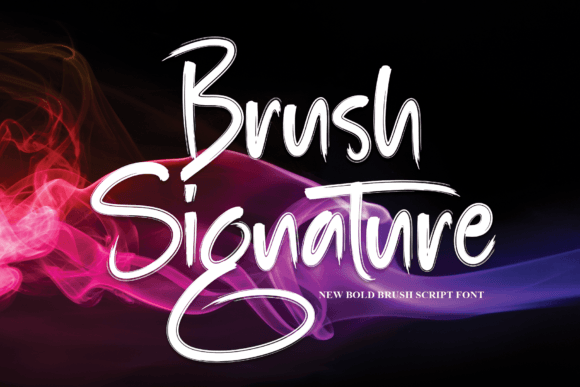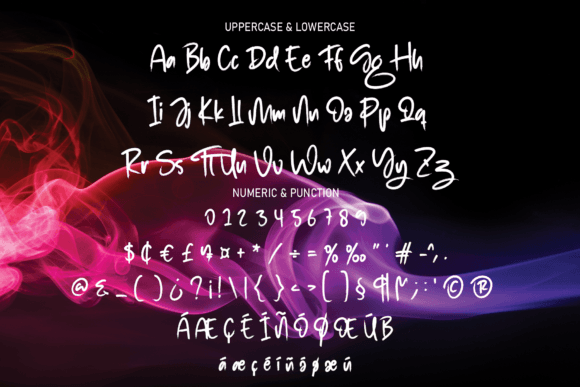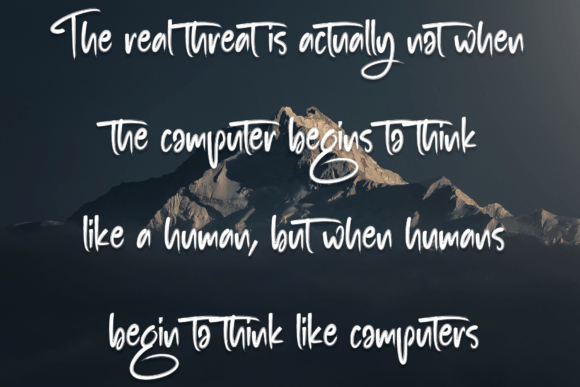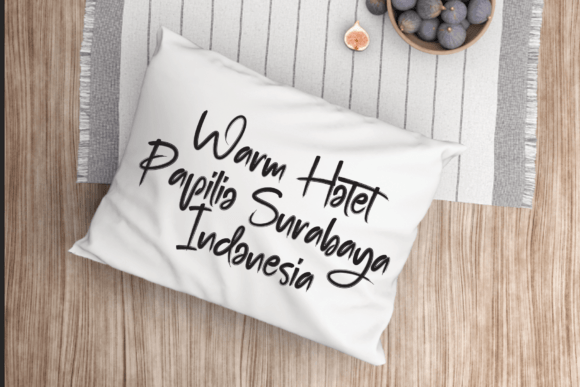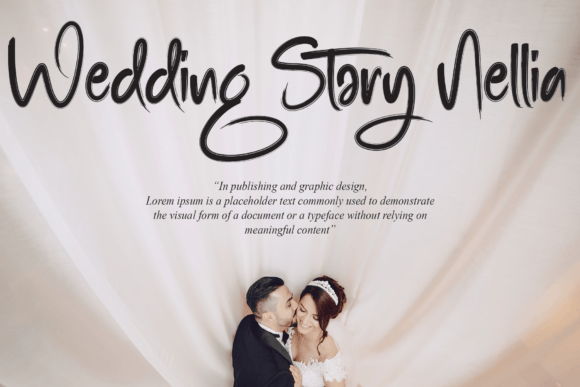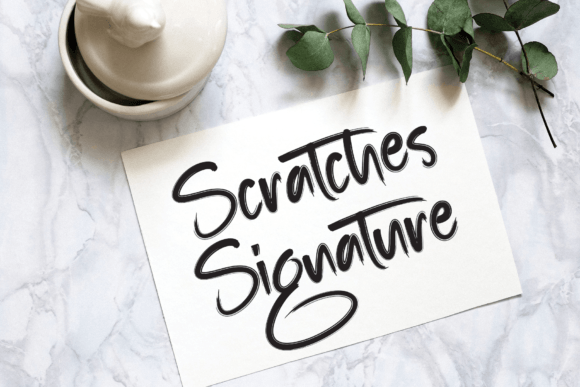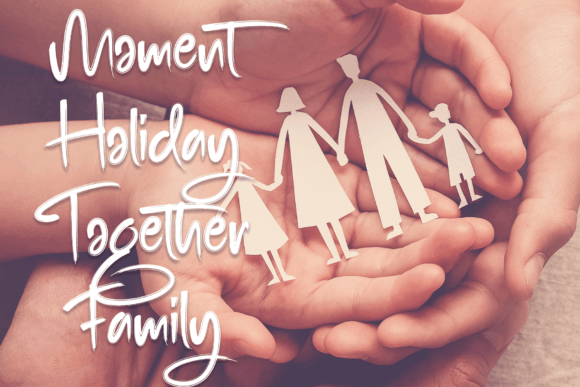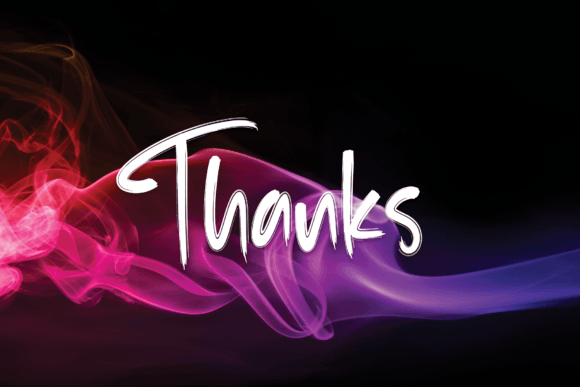
Brush Signature Font
About Brush Signature Font
Introducing Brush Signature, a font that showcases the latest style of letters, perfect for a wide range of creative projects. With its contemporary and stylish design, Brush Signature is ideal for wall displays, wedding invitations, social media post logos, advertisements, product packaging, product designs, labels, photography, watermarks, invitations, stationery, and any project that demands a handwritten taste.
The latest style of letters in Brush Signature adds a modern and trendy touch to your designs. Its brushstroke-inspired characters bring a dynamic and stylish flair, making it suitable for both casual and more formal applications.
For wall displays, Brush Signature becomes a captivating element that draws attention. The contemporary style of the letters adds a fashionable and artistic touch, creating an eye-catching focal point.
Wedding invitations benefit from the handwritten taste of Brush Signature, infusing a personalized and stylish charm into the design. The font’s versatility ensures that it can adapt to various wedding themes and aesthetics.
Social media post logos, advertisements, and product packaging find a modern and trendy companion in Brush Signature. Its dynamic letters contribute to creating a visual identity that stands out in the digital and physical realms.
In the realm of stationery, Brush Signature brings a handwritten taste that adds character and warmth to your written communications. Whether you’re crafting invitations, thank-you cards, or personal notes, this font enhances the overall aesthetic.
Photography and watermarks are elevated with Brush Signature’s contemporary style. The font complements images, adding a stylish and artistic touch to your visual content.
In summary, Brush Signature is a font designed to enhance your projects with the latest style of letters. Whether you’re working on wall displays, invitations, social media graphics, or product packaging, let Brush Signature be the choice that brings a trendy and handwritten taste to your creative endeavors.